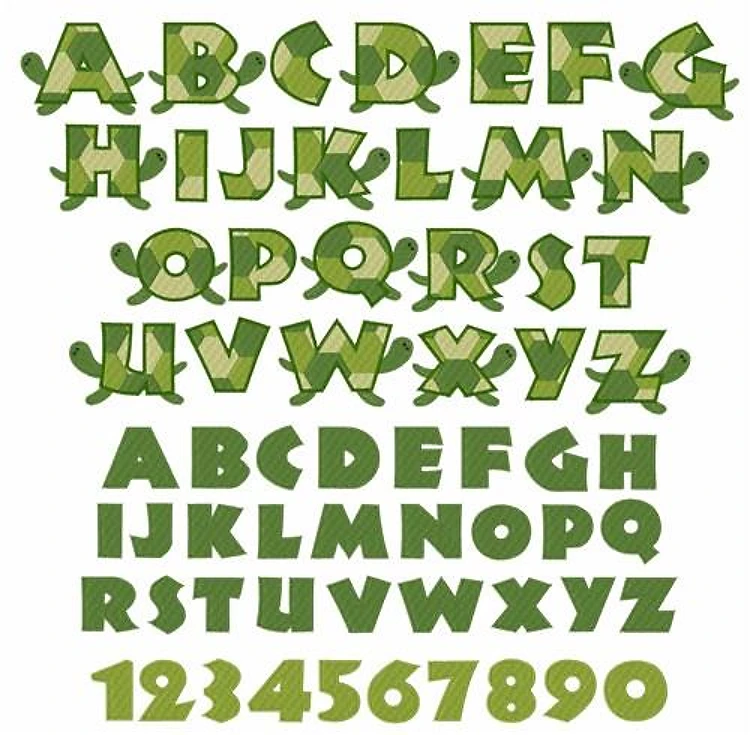
Concord Collections is happy to present Turtle Embrilliance Embroidery Font - Playful Decorative Applique - BX font machine embroidery font which has Playful decorative machine embroidery font with a camouflage pattern in shades of green, perfect for kids' apparel and accessories. This applique style gives a textured look, ideal for use on jackets and bags. Available in BX font and Embrilliance formats. included. If you would like to view more embroidery fonts and alphabets please search our embroidery fonts page.
Turtle Embrilliance Embroidery Font - Playful Decorative Applique - BX font